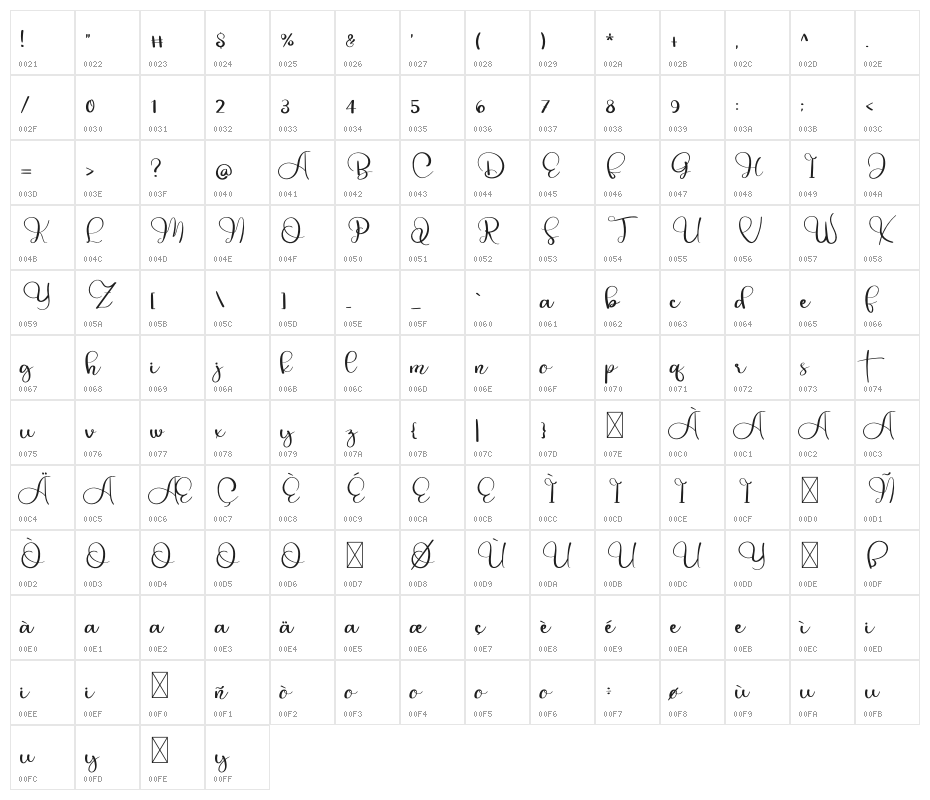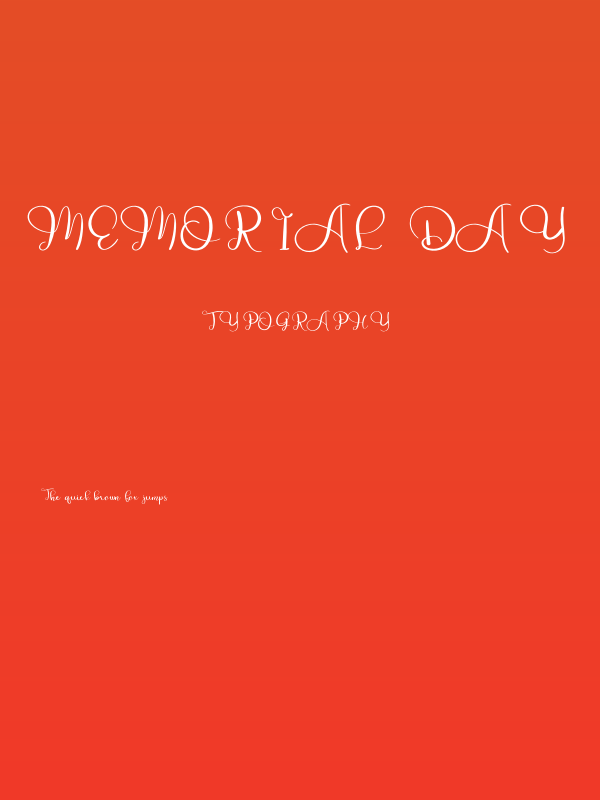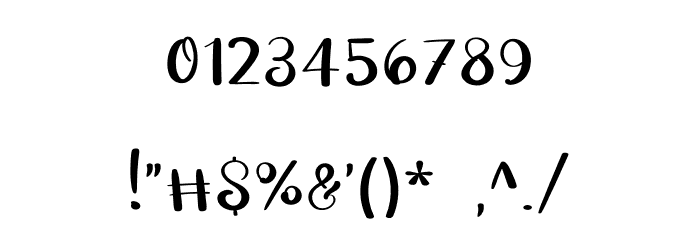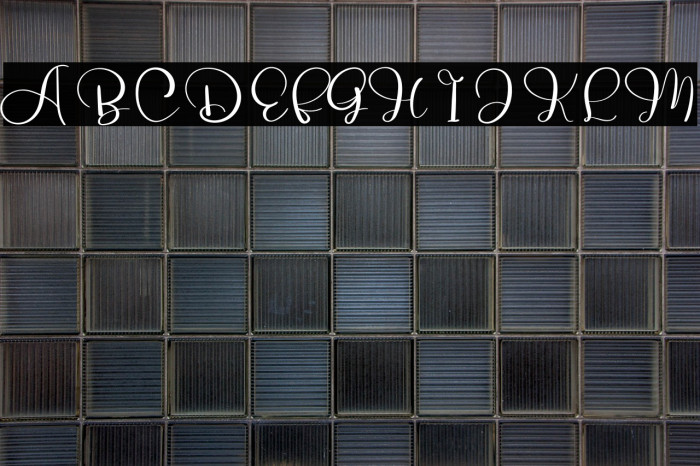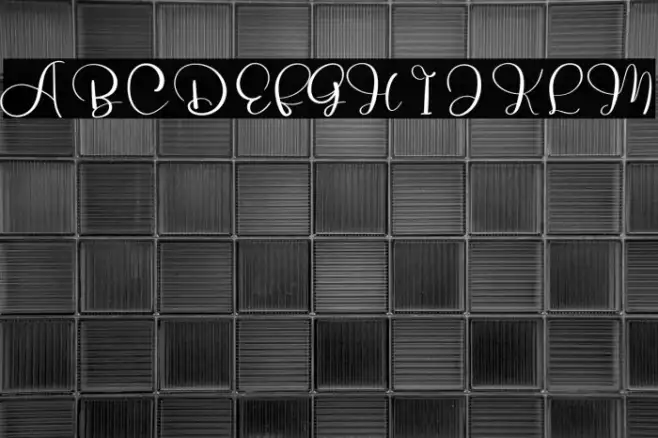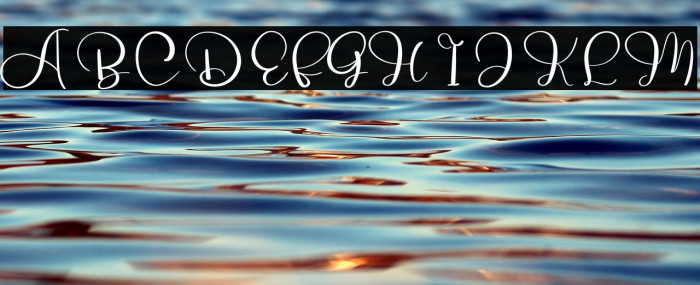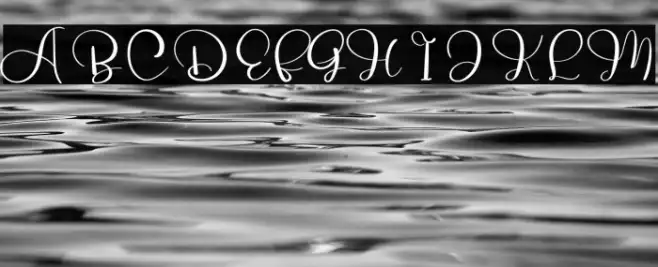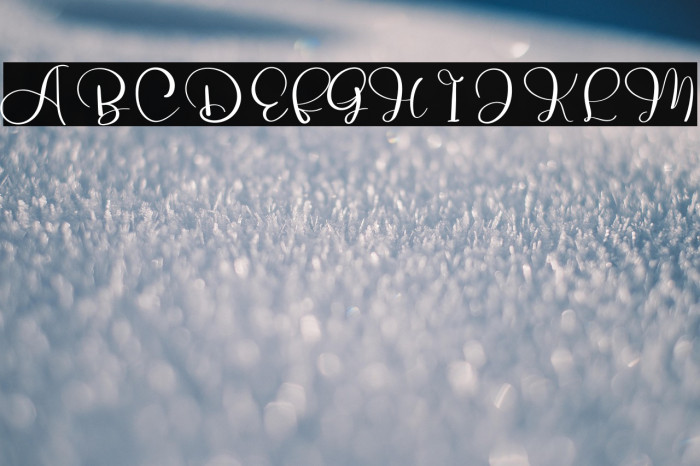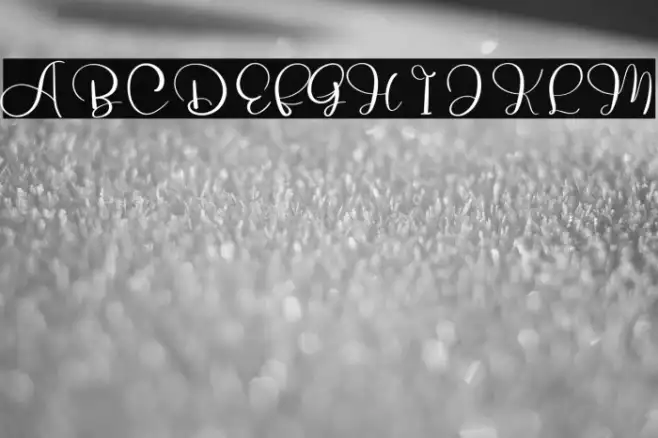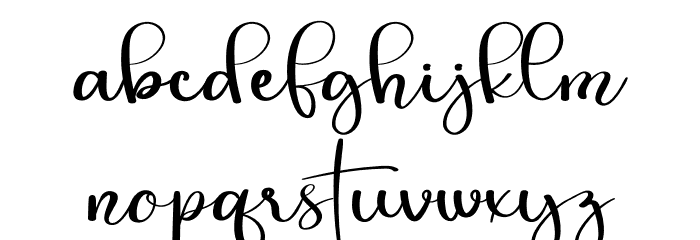
Memorial Day Font
Memorial Day Description
This font features a flowing, elegant script style that combines both uppercase and lowercase letters with a graceful, handwritten appearance. The uppercase letters are characterized by their sweeping curves and loops, giving them a sophisticated and decorative look. The lowercase letters maintain a consistent style, with smooth, connected strokes that enhance readability while retaining an artistic flair. The numerals are clear and distinct, matching the overall aesthetic of the font. Special characters are included, maintaining the same fluid and stylish design. This font is perfect for projects that require a touch of elegance and personal expression.